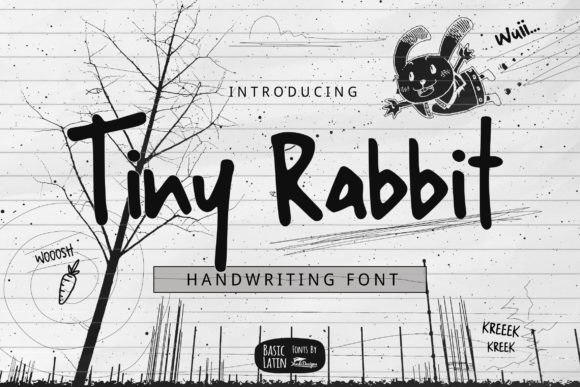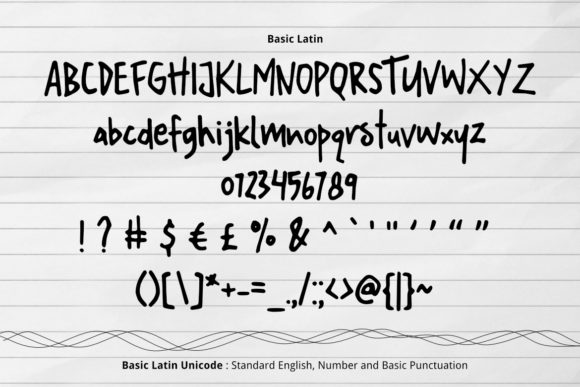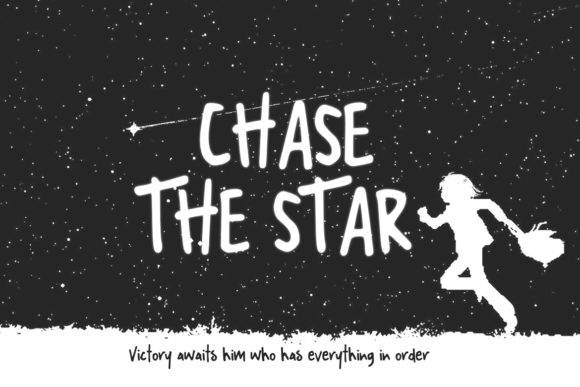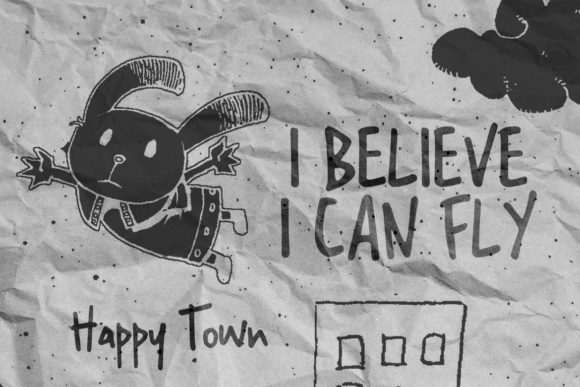
Tiny Rabbit Font
About Tiny Rabbit Font
Tiny Rabbit is a cute and down-to-earth handwritten font with a playful feel. Use it to make any design idea stand out.